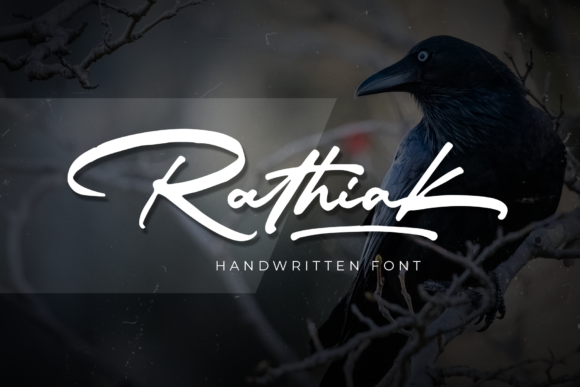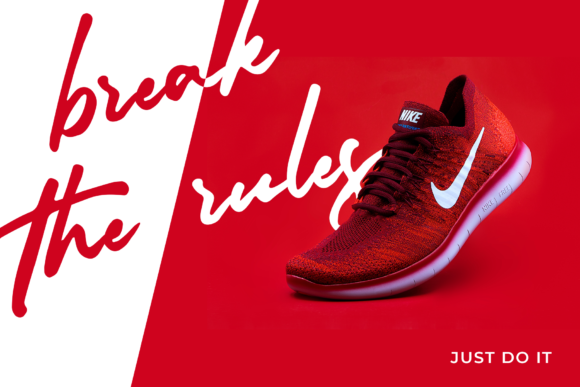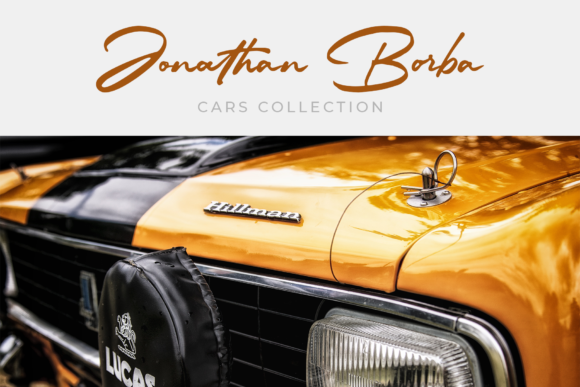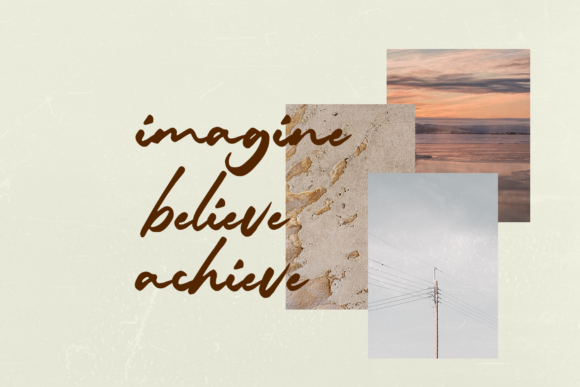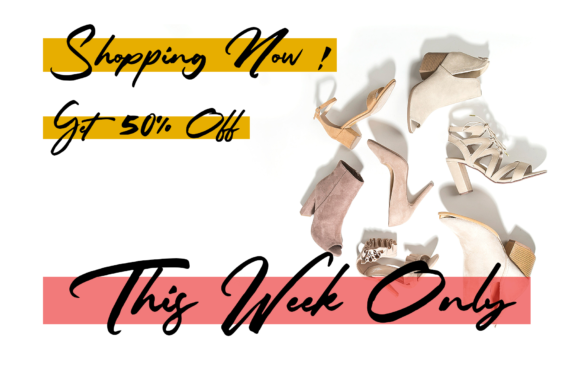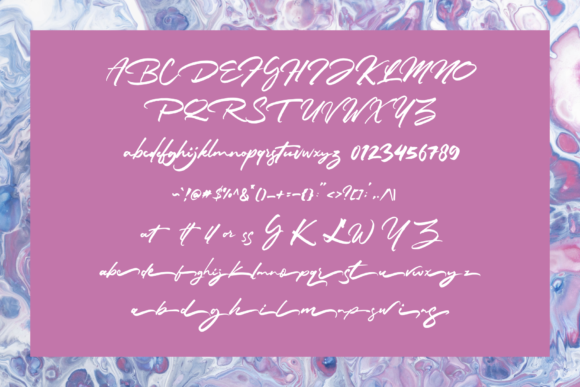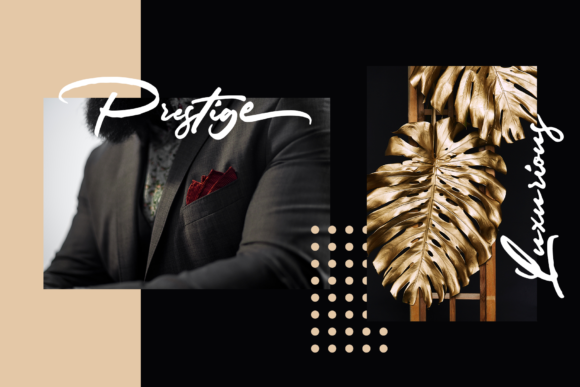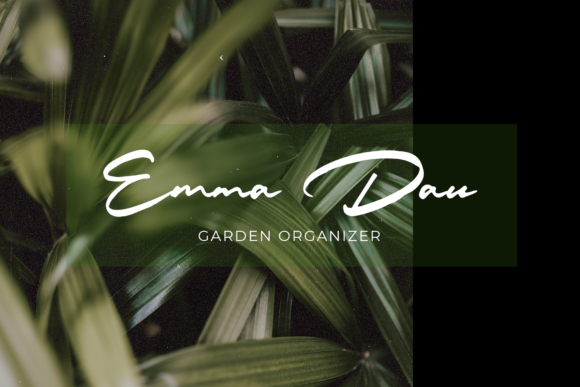
HomeScript FontsRathiak Font Script Fonts Rathiak Font FacebookXPinterestWhatsApp Rathiak Font Poster 2 Rathiak Font Poster 3 Rathiak Font Poster 4 Rathiak Font Poster 5 Rathiak Font Poster 6 Rathiak Font Poster 7 Rathiak Font Poster 8 About Rathiak Font The Rathiak is a handwritten brush font. It has an organic and handwritten touch and will nail any design project. DOWNLOAD ON CREATIVE FABRICAThis font is sold and delivered by Creative Fabrica. Font Canyon may earn a commission if you buy through this link. People also explored Simple Boy Font Skiffle of Snow Font Hello Christmas Font Homemade Font Retroround Font Alissa Monogram Font Vaglio Font Caroline Amanda Font Bellview Font 278 0 TagsRathiak Font Previous articleLove History FontNext articleMelisa Font LEAVE A REPLY Cancel reply Comment: Please enter your comment! Name:* Please enter your name here Email:* You have entered an incorrect email address! Please enter your email address here Website: Save my name, email, and website in this browser for the next time I comment. Personal Use Free Bettari Personal Use Free Read more about this font Larosh Sithal Duo Personal Use Free Read more about this font Fontmageddon Personal Use Free Read more about this font Sehat Selalu Personal Use Free Read more about this font BLOG How to Install and Use Fonts on Windows, macOS, and Web Projects How to Install and Use Fonts on Windows, macOS, and Web Projects Fonts are a crucial part of design and branding. Whether you’re designing a... Transform Your Website: Elevate Your Typography with 7 Best Web Font Generators Using Fonts in Digital Marketing: Tips to Strengthen Your Brand Identity Free Fonts Risk: Why Free Fonts Can Be Dangerous for Designers